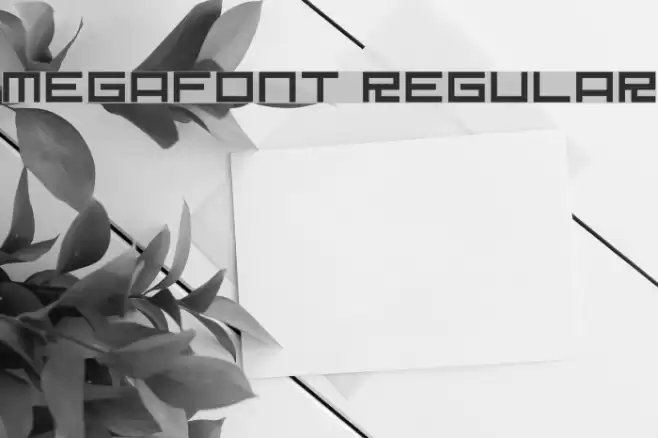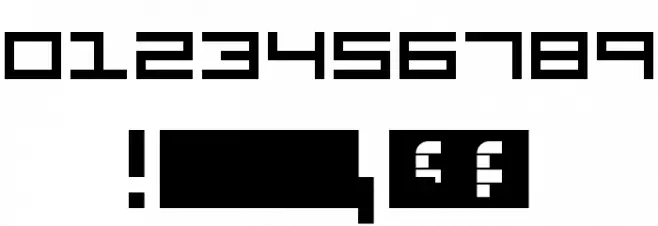
Megafont Regular Font
Megafont Regular Description
This font features a bold, geometric design with a distinctly digital and futuristic aesthetic. The characters are constructed with a grid-like pattern, giving them a pixelated appearance reminiscent of early computer graphics. The uppercase letters are uniform in height, with sharp angles and straight lines dominating the design. The lowercase letters maintain the same structural integrity, ensuring consistency across the typeface. Numbers and special characters follow the same stylistic approach, making the font highly cohesive. The overall look is modern and tech-inspired, suitable for projects that require a digital or retro-futuristic feel.
A bold, geometric font with a digital, pixelated style from Uncategorized fonts.
- Proposed Projects: Ideal for tech-themed designs, video game graphics, digital art projects, and retro-futuristic branding.
- Use Case: Logos, Headlines, Digital Art